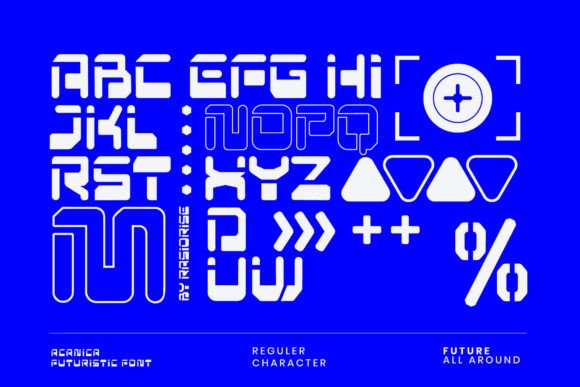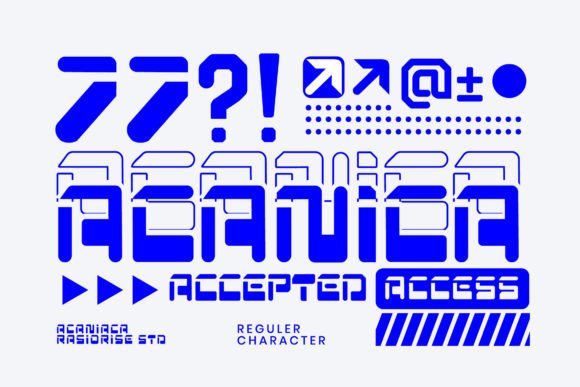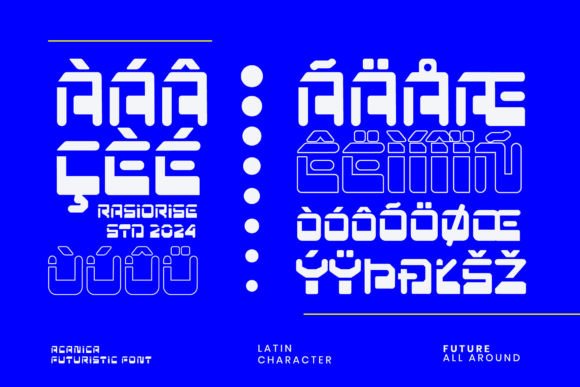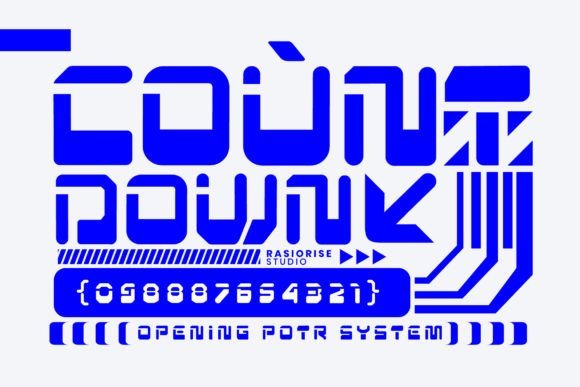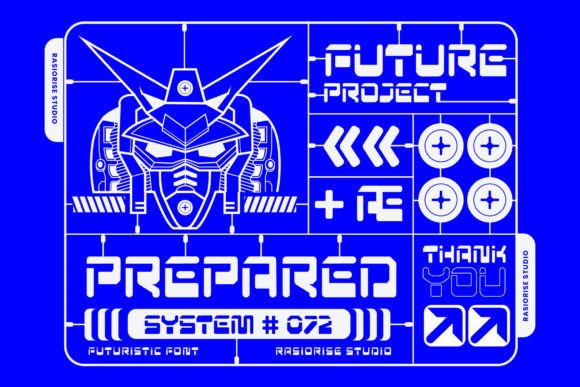
Discover the Futuristic Charm of Acanica Font
I’ll never forget the time I was working on a project for a client who wanted a futuristic and edgy vibe. I spent hours scouring the internet for the perfect font, but nothing seemed quite right. That was until I stumbled upon Acanica, a Y2K display font that perfectly captured the essence of the client’s vision. In this article, I’ll share my experience with Acanica, its features, and how to make the most of it in your designs.
A First Impression: What I Love About Acanica
Acanica is a stunning display font that exudes a sense of futurism and playfulness. Here are some things I love about it:
- ✨ Unique and quirky character designs that add a touch of personality to any project
- ✅ Perfect for social media graphics, logos, stickers, posters, and more
- 💻 Works beautifully in both digital and print formats
- 🎨 Highly versatile and can be used in a variety of design contexts
An Honest Review: A Few Quirks to Consider
While Acanica is an amazing font, there are a few quirks to be aware of:
- 🤔 Some characters may appear a bit distorted at smaller font sizes, so it’s best to use it at larger sizes (24px and above)
- ⚠️ Limited support for non-English characters, so it’s best to use it for English-language projects
- Take advantage of OpenType features, such as glyphs and stylistic alternates, to add more personality to your text
The Backstory Behind Acanica
Acanica was designed by a team of creatives who wanted to capture the essence of the Y2K era. Inspired by old-school video games, sci-fi movies, and futuristic architecture, they crafted a font that would transport users to a world of neon lights and digital dreams.
| Font Name | Acanica Font |
| Author | Rasiorise Studio |
| What is Acanica font best used for? | Acanica is perfect for display text, such as titles, headings, and logos. It’s also great for social media graphics, stickers, and posters. |
| Does Acanica support non-English characters? | No, Acanica has limited support for non-English characters. It’s best to use it for English-language projects. |